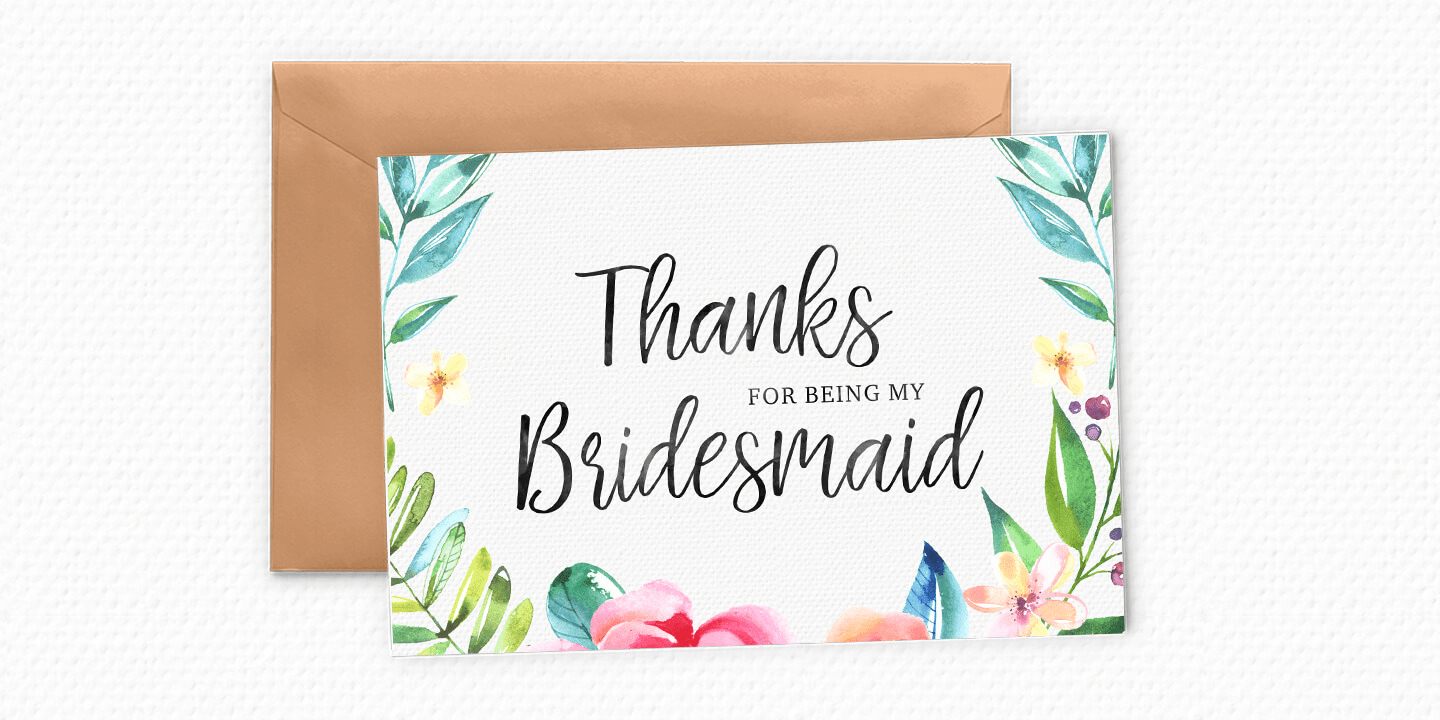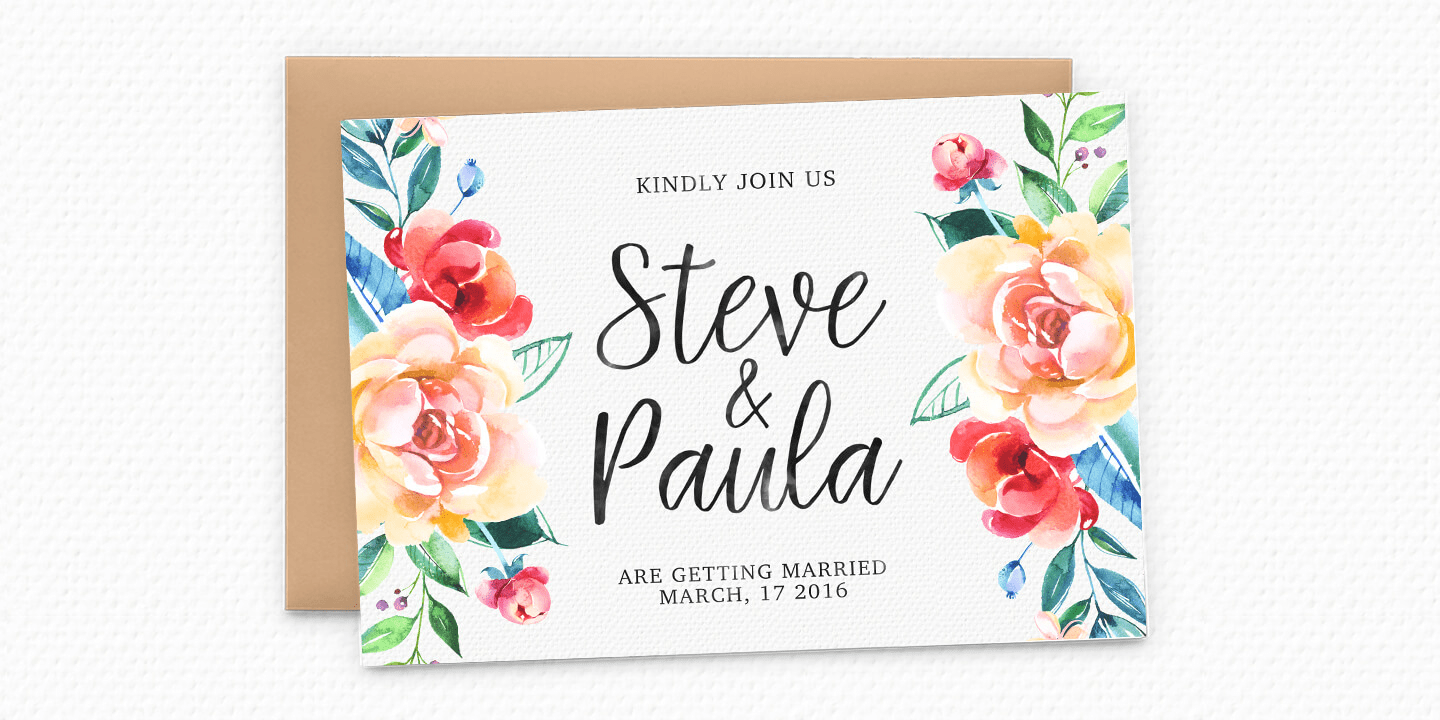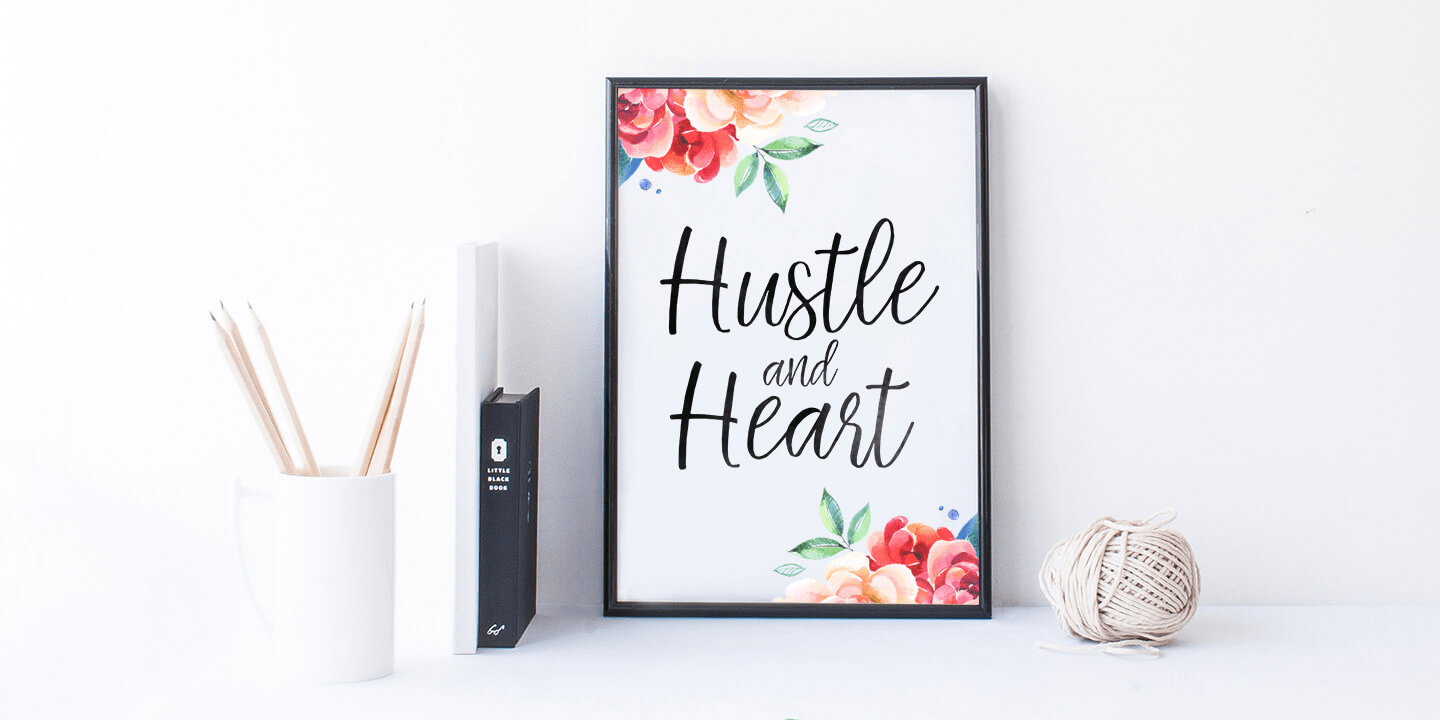
Be Bright is a sweet elegant handbrushed calligraphy font. It has a varying baseline with separate swashes that can be applied to the beginning and ends of all lowercase letters. The glyphs were originally painted on paper, then scanned, vectorized and…